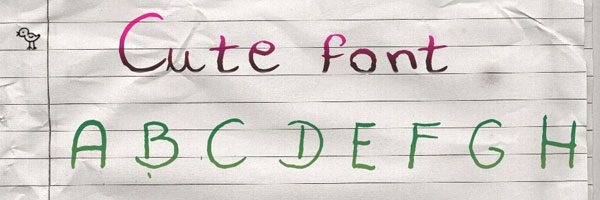
Cute fonts are highly useful and always in demand because they can extol and glorify an artwork, specially if its targeted for girls or kids. You can see high use of cute fonts in different websites or artworks related to kids or girls.
These cute fonts call for attention and give a soft touch to the artwork to make it more invoking for this section.
Today we have collected some really wiggly squiggly and cute fonts that will add the feminine touch to your work and make it mass appealing. As we always say, respect the author’s work and read the license details before incorporating these cute fonts in your commercial projects.
Cute font
The Only Exception
Cupid de Locke Font
Airplanes in the Night Sky
Alice in Wonderland
Moonlight Shadow
Pea Noodle Teen
Bedtime Stories
Pea Ambrielle
Heart Sweet Heart
Words of love
Montepetrum
Waker
Celeste Hand Font
BlackCasper Font
Quilted Butterfly
Caviar Dreams Font
Caribbean Tool
Chocolate Dealer
FLOWER
Barbie Font (Download Link)
Urban Sketch
Written on His Hands
Dutch & Harley
I just love the Moonlight Shadow font! The Mousie font is also very funny :) Nice list ;)
These cute fonts are awful. I don‘t find them as any useful font. Rest of them are good especially the “Bedtime stories” font and “Pea Noodle Teen” font. Good for creating digital love letters :D
Cool fonts collection especially loved the Urban Sketch and flower..
I really like these kind of fonts. It has the simplistic approach but have the appeal to grab the attention of the viewers.